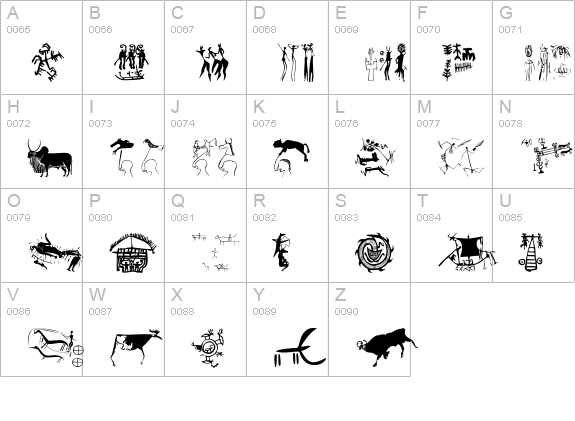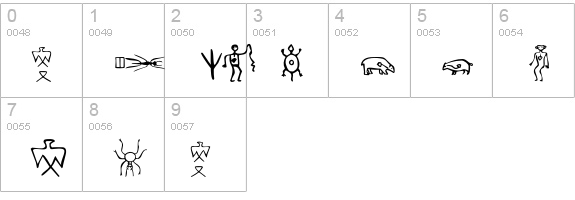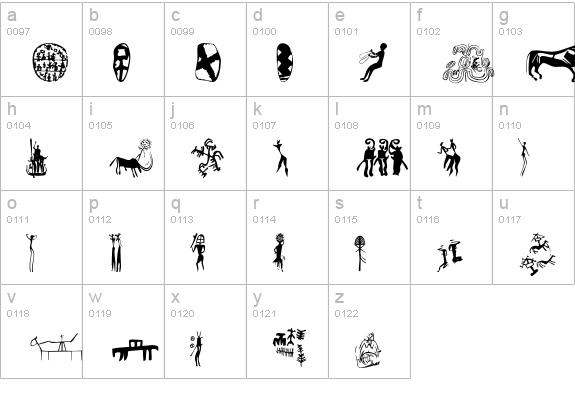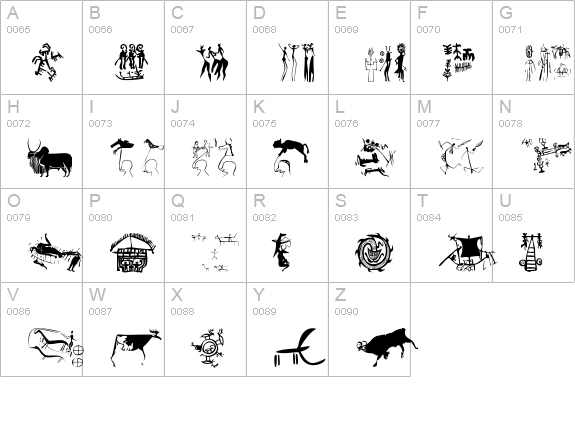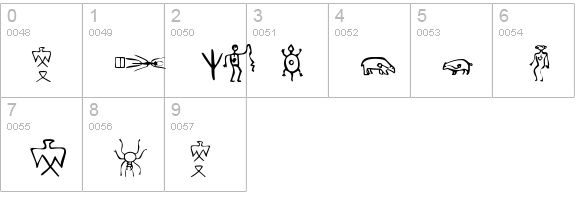
AIBeforeTheAlphabetI Font Details
AIBeforeTheAlphabetI font is a whimsical and playful typeface that exudes creativity and charm. Its unique design features quirky letterforms that seem to dance across the page, making it perfect for adding a touch of fun to any project. This font is a must-have for anyone looking to inject some personality into their designs. Best of all, AIBeforeTheAlphabetI font is available for free download at FontsMarket.com. Whether you're working on a personal project or a professional design, this font is sure to inspire and delight. Embrace the creativity of AIBeforeTheAlphabetI font and let your imagination run wild.